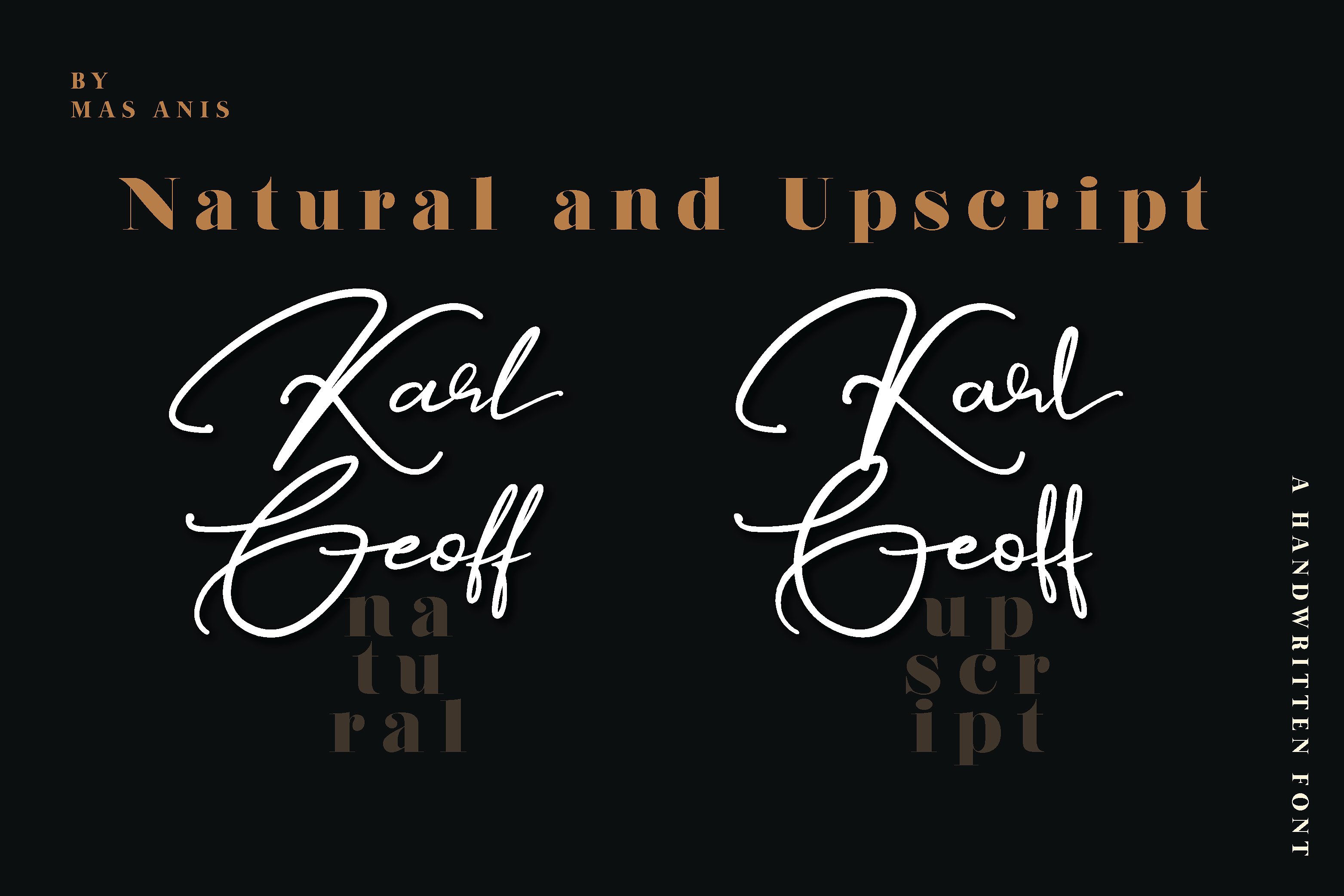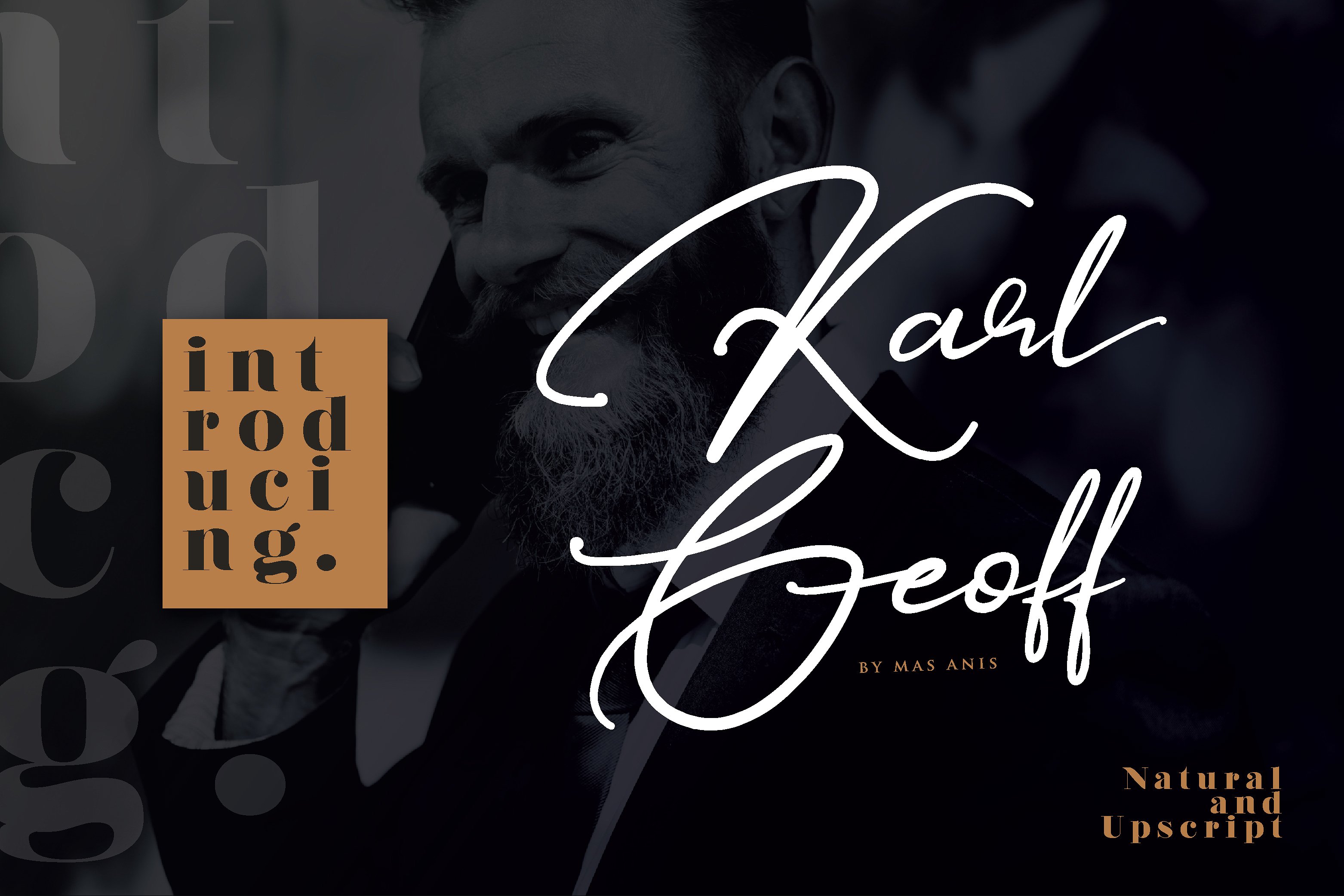
Karl Geoff Handwritten
Karl Geoff Handwritten Font
Karl Geoff is a unique and cool looking handwritten script, ideal for use in projects that need an organic and natural style. This font is great for logotype, signatures, labels, and can add an elegant and classy look to your work.